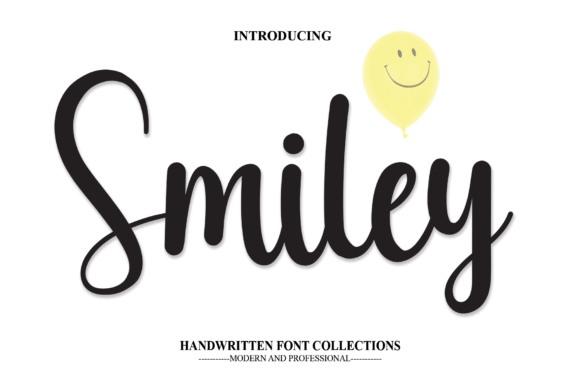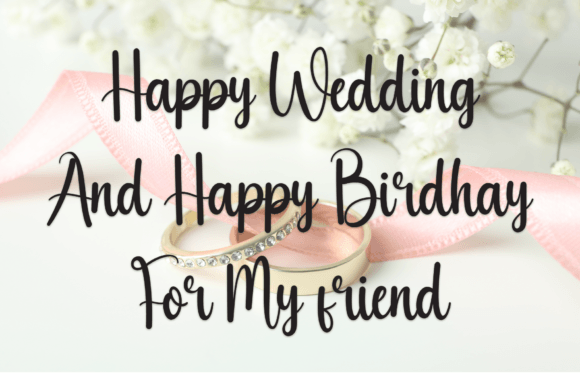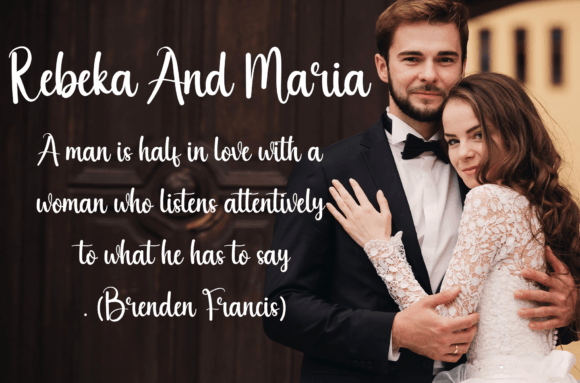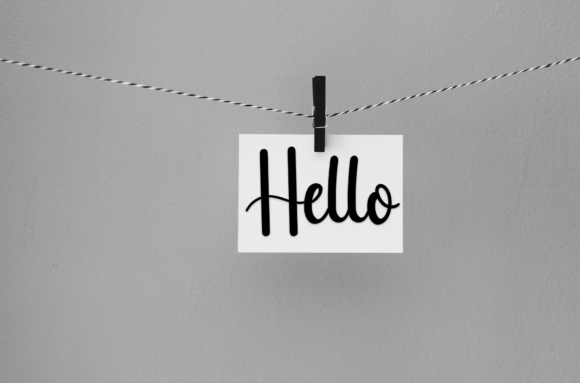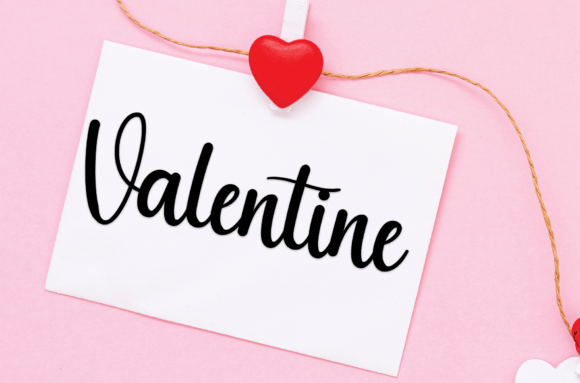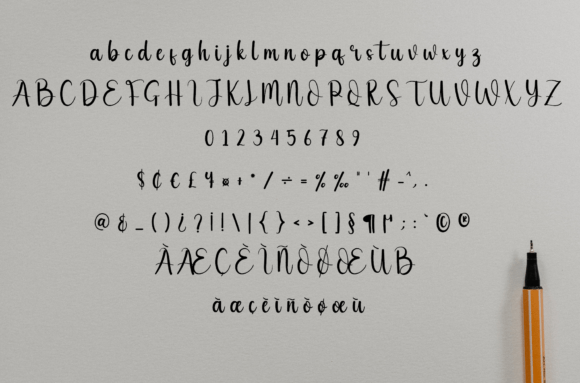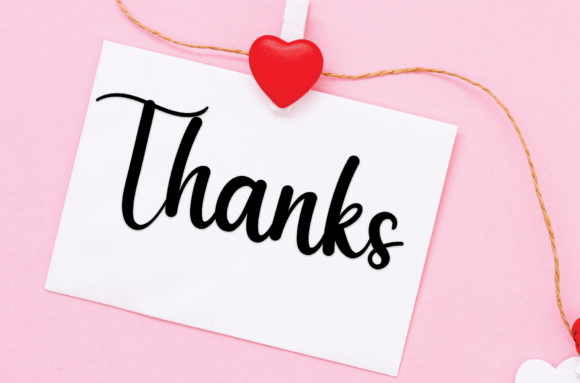
Smiley Font
Bring Joy to Your Designs with Smiley Font
If you’re looking to add a playful, heartwarming vibe to your design projects, Smiley Font is a perfect choice. This sweet and friendly handwritten typeface has a fun and relaxed appearance, making it ideal for a variety of creative applications.
Perfect for Special Moments
Smiley Font captures the essence of joy and positivity. Whether you’re designing wedding invitations or thank-you cards, this font enhances the emotional impact of your message. The handwritten style offers a personal and intimate feel that resonates with recipients.
Use Smiley Font for:
• Wedding invitations
• Greeting and thank-you cards
• Baby shower designs
• Scrapbooking titles
• Social media graphics
• Handmade product packaging
Thanks to its casual yet elegant strokes, Smiley Font can adapt to both personal and professional design needs.
Why Designers Love Smiley
One reason designers favor this font is its balance between playfulness and clarity. It’s not just cute—it’s also legible and professional. Transitioning between formal and informal tones becomes effortless when you use Smiley in your design palette.
Key features include:
• Soft and rounded letterforms for a friendly appearance
• Smooth flow, ideal for both print and digital media
• Aesthetic consistency across various formats and platforms
Additionally, its subtle charm makes it suitable for audience-focused branding where warmth and approachability matter.
A Font That Elevates Your Brand’s Personality
If you’re running a small business or personal blog, fonts like Smiley can make a real difference in brand perception. By incorporating this typeface into your visual identity, you communicate joy, friendliness, and authenticity. This makes your content not only beautiful but also emotionally engaging.
Try using Smiley Font in:
• Etsy shop banners
• Instagram story highlight covers
• YouTube thumbnails
• Custom labels or handmade tags
In doing so, you’ll create a consistent visual tone that feels inviting and memorable.
To summarize, Smiley Font is more than just a handwritten typeface—it’s a tool for spreading happiness through design. With its sweet and approachable character, it’s perfect for adding a delightful touch to wedding invites, cards, social posts, and more. If your goal is to design with heart and warmth, Smiley will serve you well across all your creative projects.